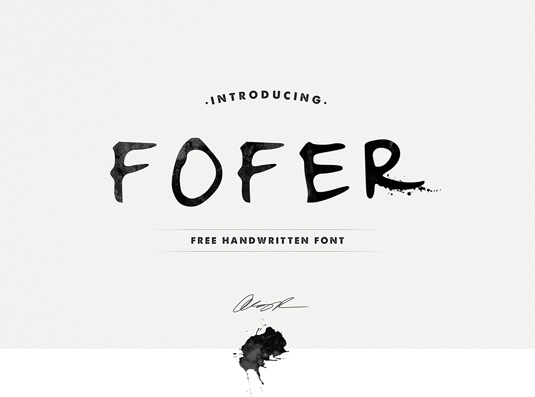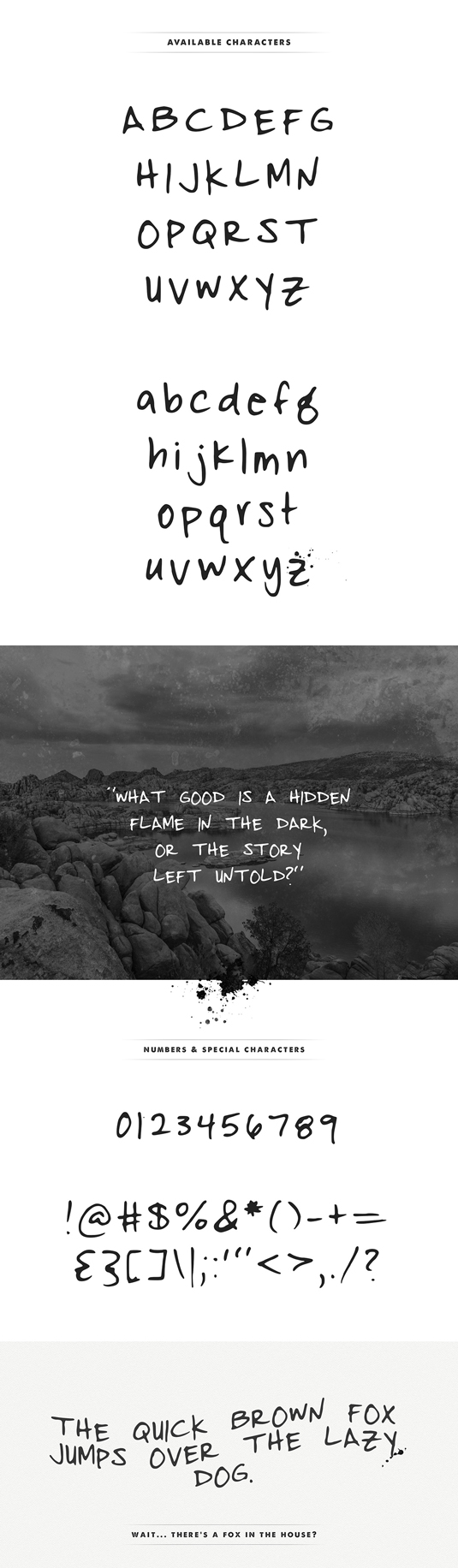
Font of the day: Fofer
Fofer by Angie Raess
Today's typeface of choice is handwritten design Fofer, created by Mousse Creative founder and creative director Angie Raess. "Sometimes the best projects are the ones created from a problem," Raess comments on Behance. "We needed a specific font and couldn't find it. What better way to solve a problem than to use our own handwriting?"